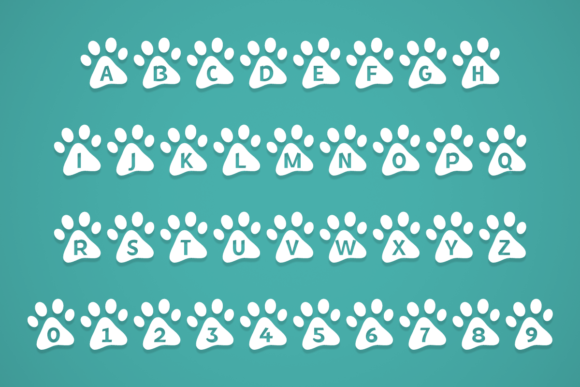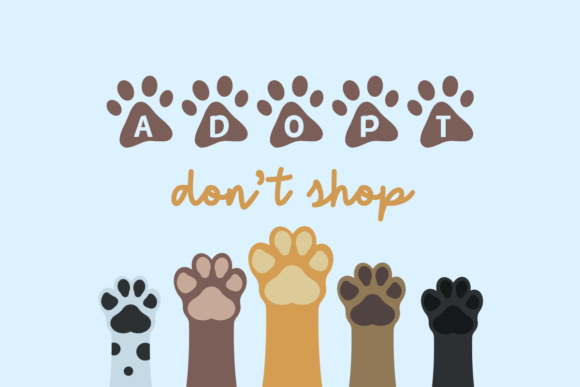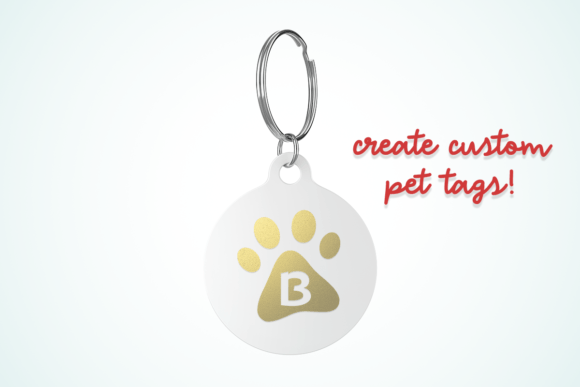
Introduction to Mf Paw Prints Font
MF Paw Prints is an adorable decorative typeface that is perfect for creating customized pet-related products, as well as, cute gifts for the pet lover in your life.
It would also be a great fit for veterinarian offices, humane societies, and any other pet-related organizations or businesses .